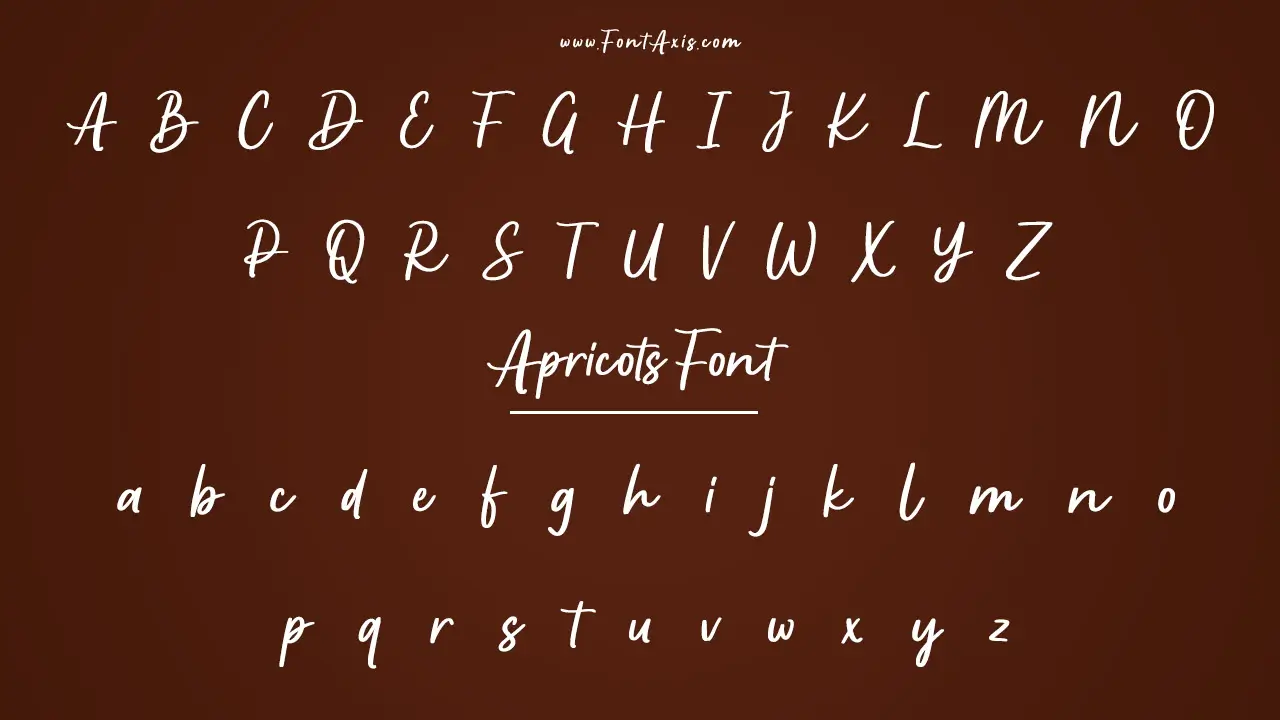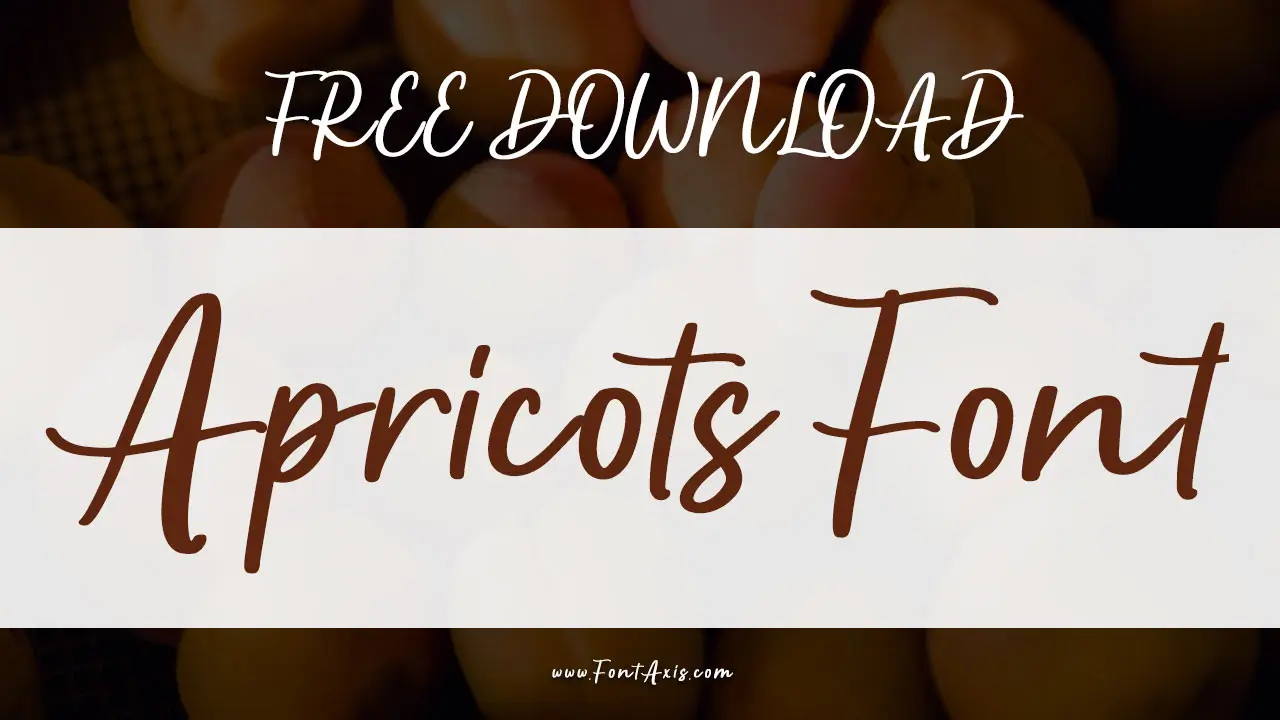
Apricots Font is a charming, handwritten brush script designed by William Jhordy, first released on July 10, 2019. This sweet and friendly typeface adds a playful touch to various creative projects.
| Style | Handwritten, Brush Script |
| Designer | William Jhordy |
| Type | Decorative, Script Font |
This single style of the font captures the essence of a playful handwritten design, which makes it highly versatile for various projects. Whether you’re working on a formal design or something more whimsical, Apricots Font fits the bill perfectly.
Where Apricots Font Is In Use
The Apricots Font is widely used for various creative projects, making it a popular choice among designers and DIY enthusiasts. Some of the most common uses include:
- Wedding Invitations: This friendly, stylish font adds a personal touch to wedding stationery.
- Greeting Cards: Perfect for birthday cards, thank-you notes, and other personalized stationery.
- Branding and Logo Design style=”font-weight: 400;”>: The font’s distinctive style makes it a great choice for creating unique and playful logos.
- Printed Materials: Ideal for flyers, brochures, and other marketing materials that need to stand out.
- Social Media Posts: Use the font to create engaging content for platforms like Instagram, Facebook, and Pinterest.
- Creative Projects: Works well in design software like Adobe Illustrator and Photoshop for creative graphic projects.
- Personal Journals and Planners: Its informal charm adds a personal touch to journals or personal planners.
Similar Fonts To Apricots Font
If you love the Apricots Font, here are some similar fonts that share a handwritten, whimsical, or playful feel:
- House Bakery – A casual handwritten font that offers a similar warm and welcoming vibe.
- Slims – A stylish, elegant handwritten font with a slightly more refined look.
- Adrian Stars – A playful script with a unique style, perfect for fun designs.
- Hello Sweety – A friendly and light-hearted font that can be paired well with Apricots for a playful contrast.
- Cheeper – A rounded, bubbly script font with an informal feel.
- Capital – A fun, handwritten font with bold strokes that can complement the whimsical nature of Apricots Font.
These fonts share a similar casual charm and can work well in various design projects where a handwritten script is desired.
Best Font Pairing For Apricots Font
Apricots Font pairs well with a variety of fonts that either complement or contrast its playful style. Here are some pairing suggestions:
- Sans serif fonts: Pair Apricots Font with clean, modern sans serif fonts like Lato or Montserrat to create a bold contrast and balance the playful nature of Apricots with more structured, readable text.
- Slab serif Fonts: Combine Apricots Font with slab serif fonts for a vintage-inspired look. Fonts like Rockwell or Roboto Slab can provide an interesting and stylish balance.
- Cursive Fonts: For a more elegant, cohesive look, pair Apricots Font with cursive fonts like Dancing Script to enhance the handwritten charm of your design.
The Apricots Font is a charming handwritten brush script that adds a playful touch to various design projects. Its versatility suits everything from wedding invitations to branding and social media posts. Whether you’re creating a personal journal, event materials, or a logo design, this font will help infuse a fun, light-hearted vibe into your work. Check the license terms for commercial use and enjoy using this delightful font in your next creative endeavor.